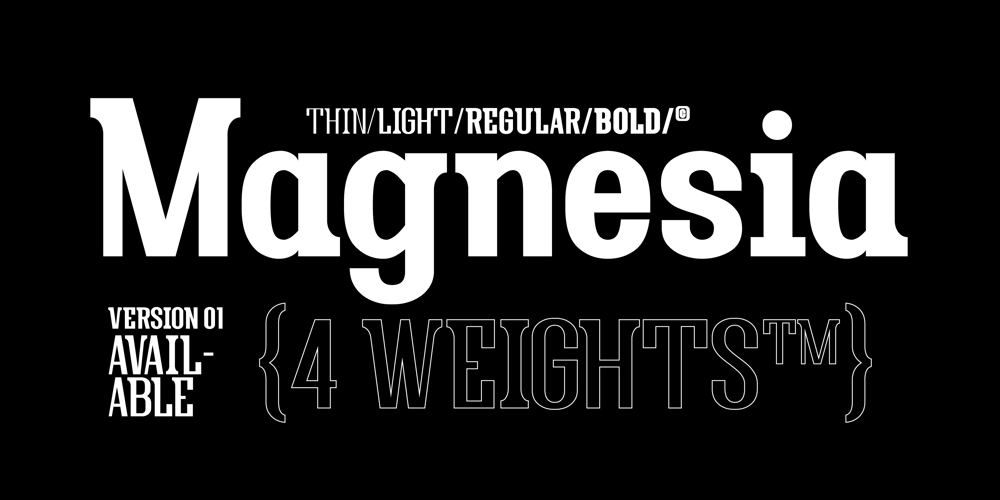
Magnesia SF Font Family was designed by Paul Henry Robb and published by S6 Foundry. Magnesia SF contains 4 styles and family package options. Magnesia Sf is a modern, one-of-a-kind font that will make your designs stand out against the competition. This stylistic semi-block serif comes in 4 styles and has Multi-languages support and the display typeface has what you need for all sorts of projects!Perfectly suited for headlines, large-format prints, brand identities, social media, advertising, editorial design, posters, magazines, logos, headings, digital and more.